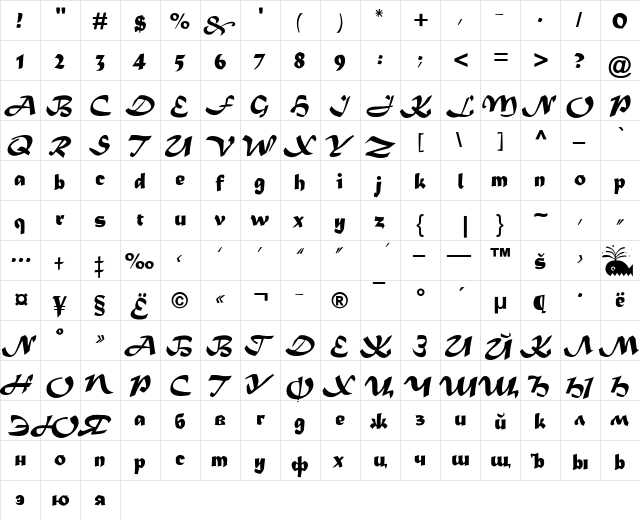
Madera Regular Font Preview
Madera Regular
Design Context for Madera Typeface
Madera is a composed and adaptable typeface that performs quietly and consistently across a wide range of design contexts.